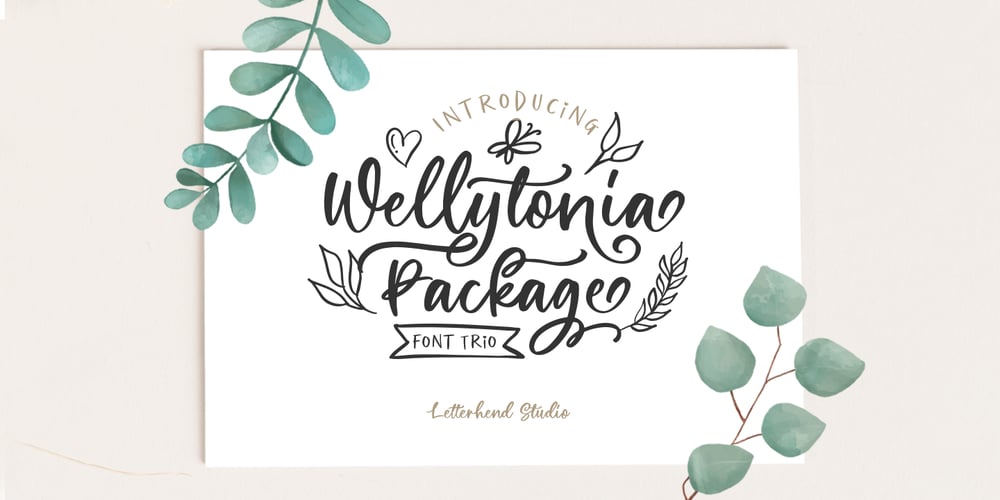
Wellytonia Package Font Family was designed by Hendry Juanda and published by Letterhend. Wellytonia Package contains 3 styles and family package options. Wellytonia package is a package consist of script font, sans serif font, illustration, ready-made logos and dingbats! All made by manual hand drawing to make sure the natural looks and feel. This type of font perfectly made to be applied especially in logo, and the other various formal forms such as invitations, labels, logos, magazines, books, greeting / wedding cards, packaging, fashion, make up, stationery, novels, labels or any type of advertising purpose.Features : Wellytonia Script, Sans & Dingbats uppercase & lowercase numbers and punctuation multilingual alternates & ligatures PUA encoded